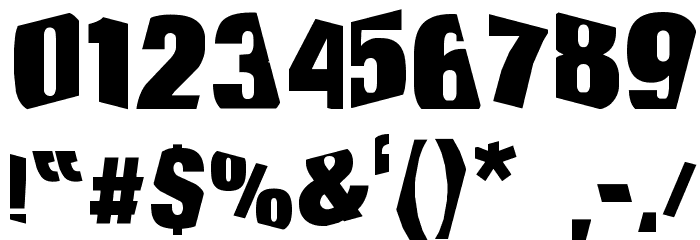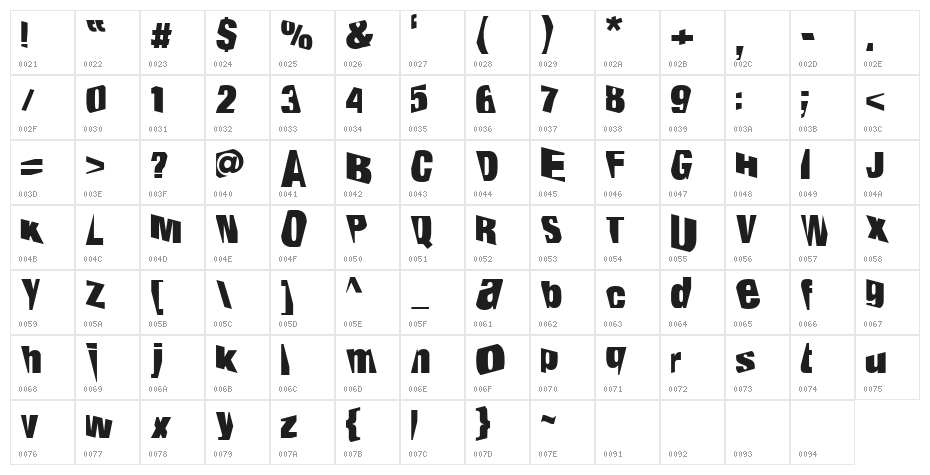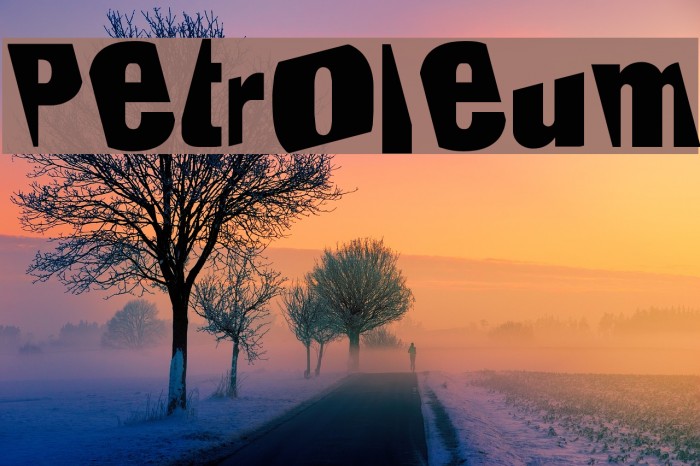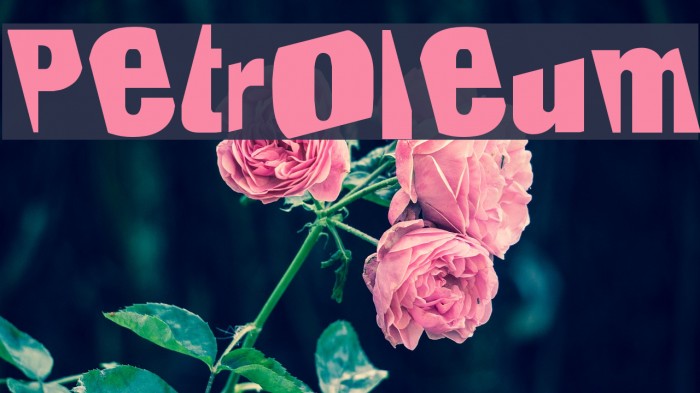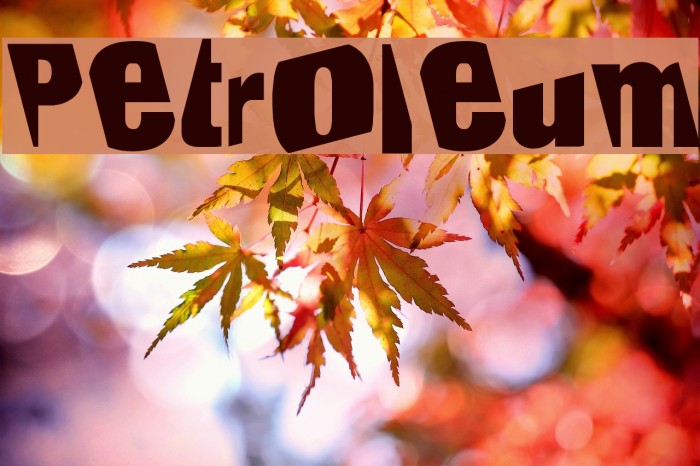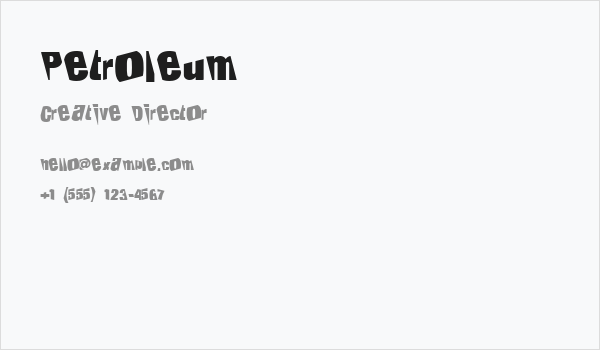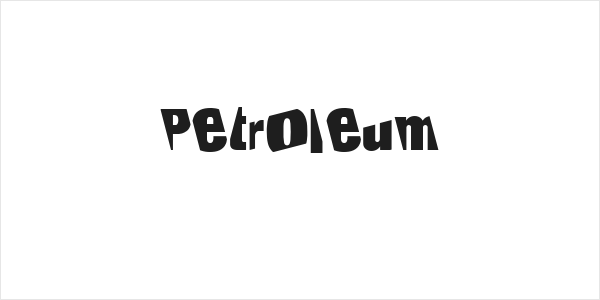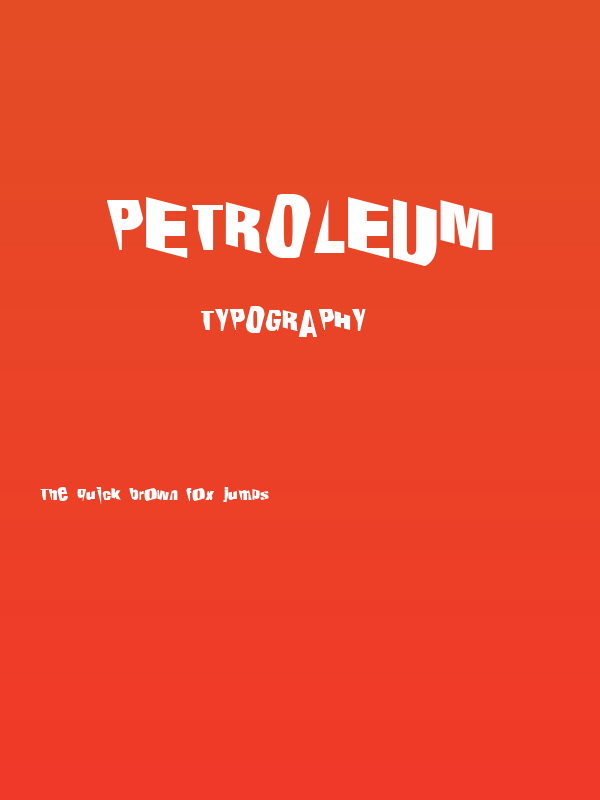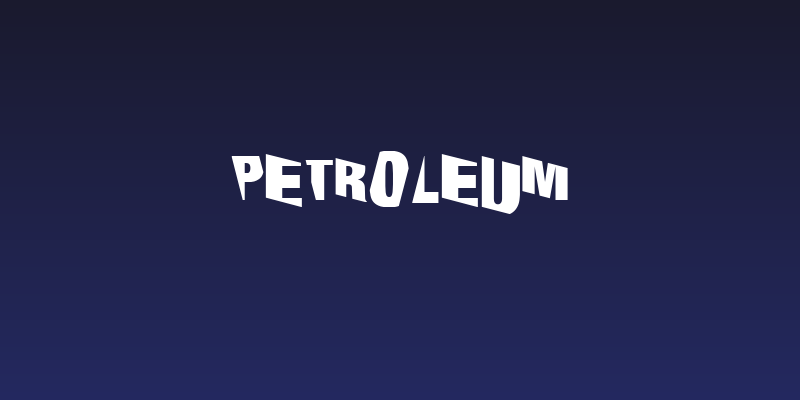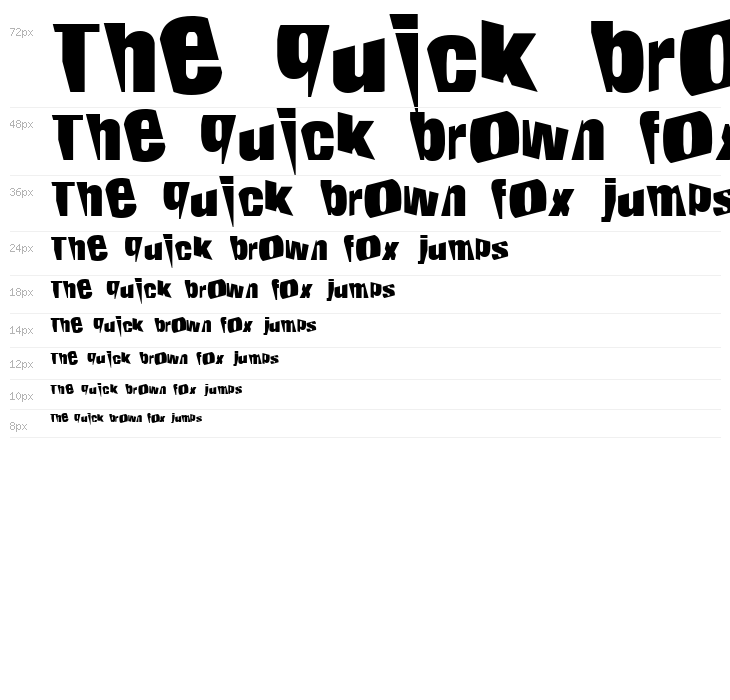
Petroleum Font
Petroleum Description
This font features a bold and dynamic style with a distinctly irregular and playful character design. Each letter exhibits a unique, slightly distorted form, giving the typeface a lively and energetic appearance. The uppercase and lowercase letters maintain a consistent weight, contributing to a cohesive look despite their quirky shapes. The numbers and special characters follow the same design principles, ensuring uniformity across all glyphs. This font's boldness and irregularity make it stand out, ideal for projects that require a strong visual impact.
| Overall Style | Modern, Playful |
| Proposed Projects | Ideal for posters, album covers, branding for creative industries, and any project needing a bold, eye-catching typeface. |